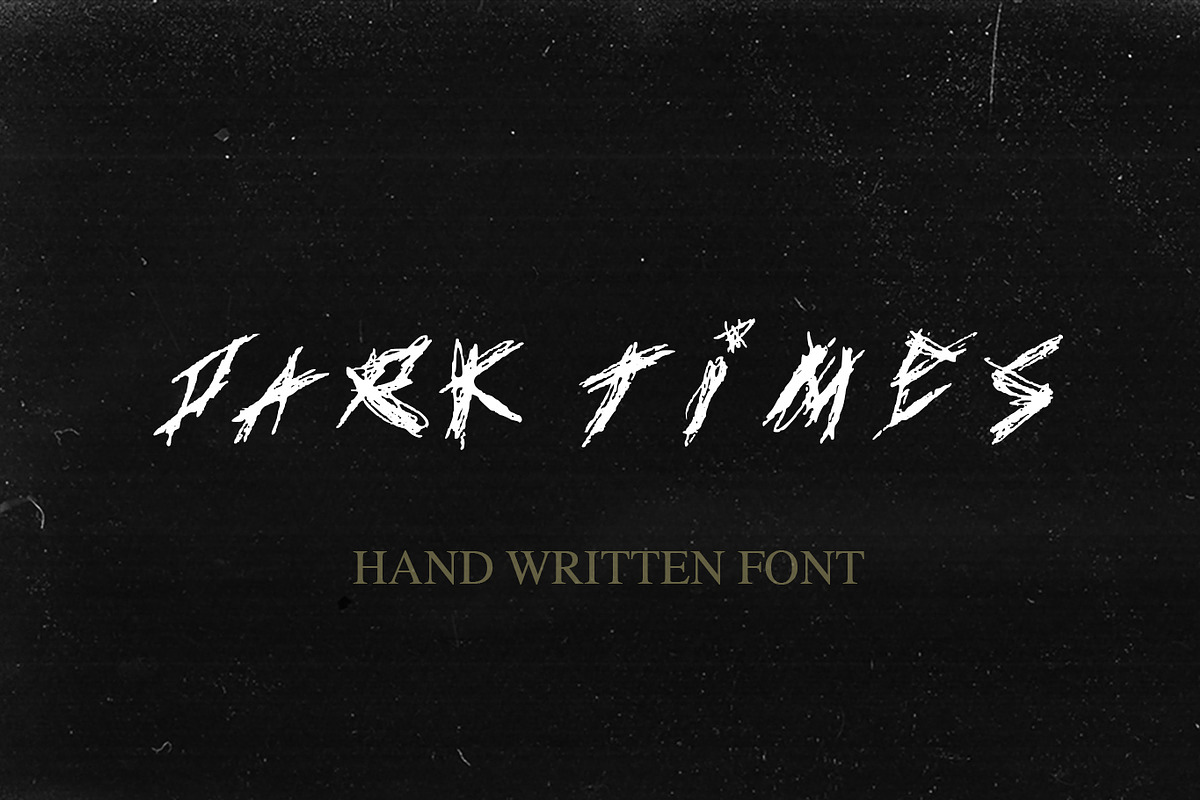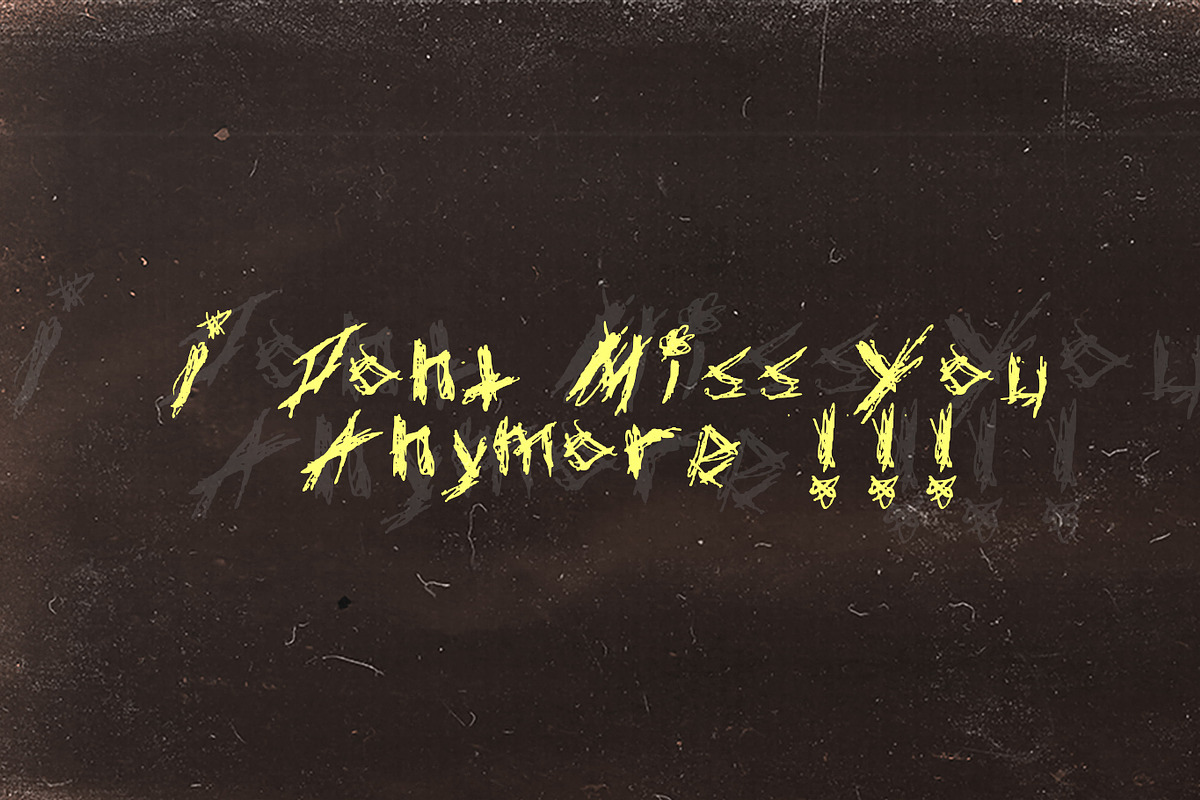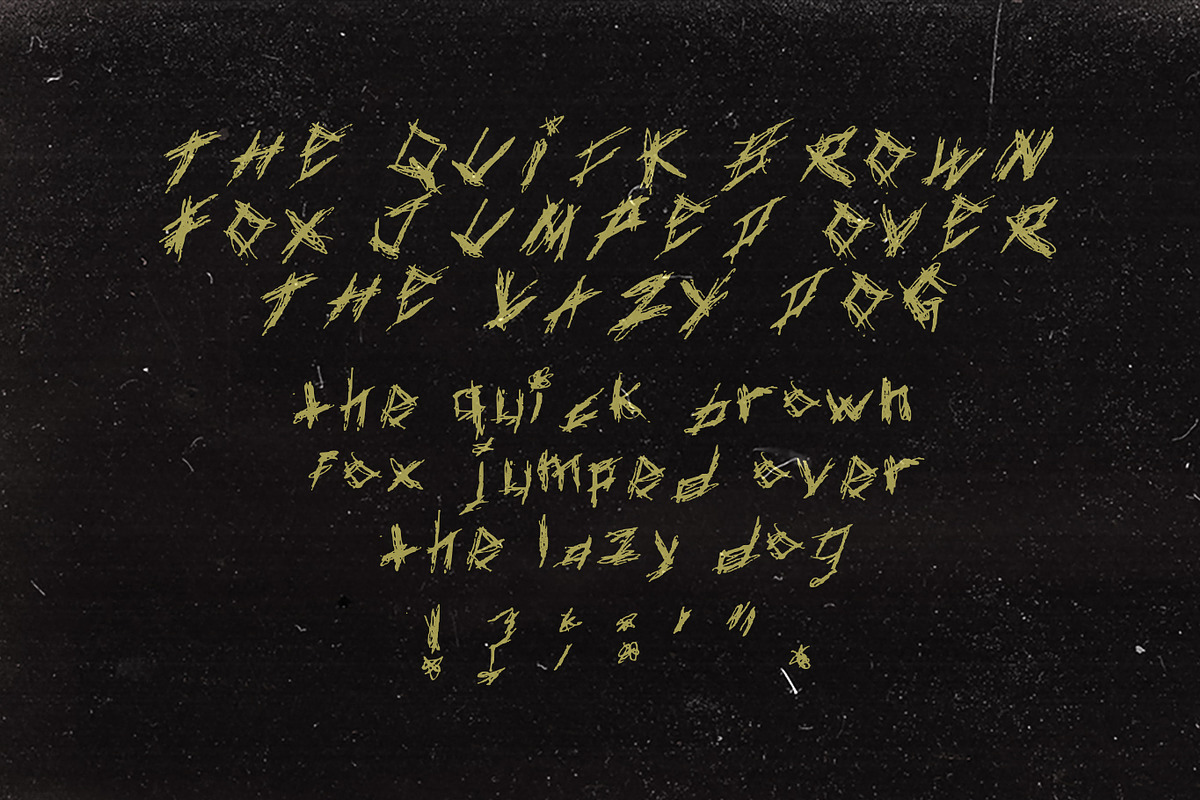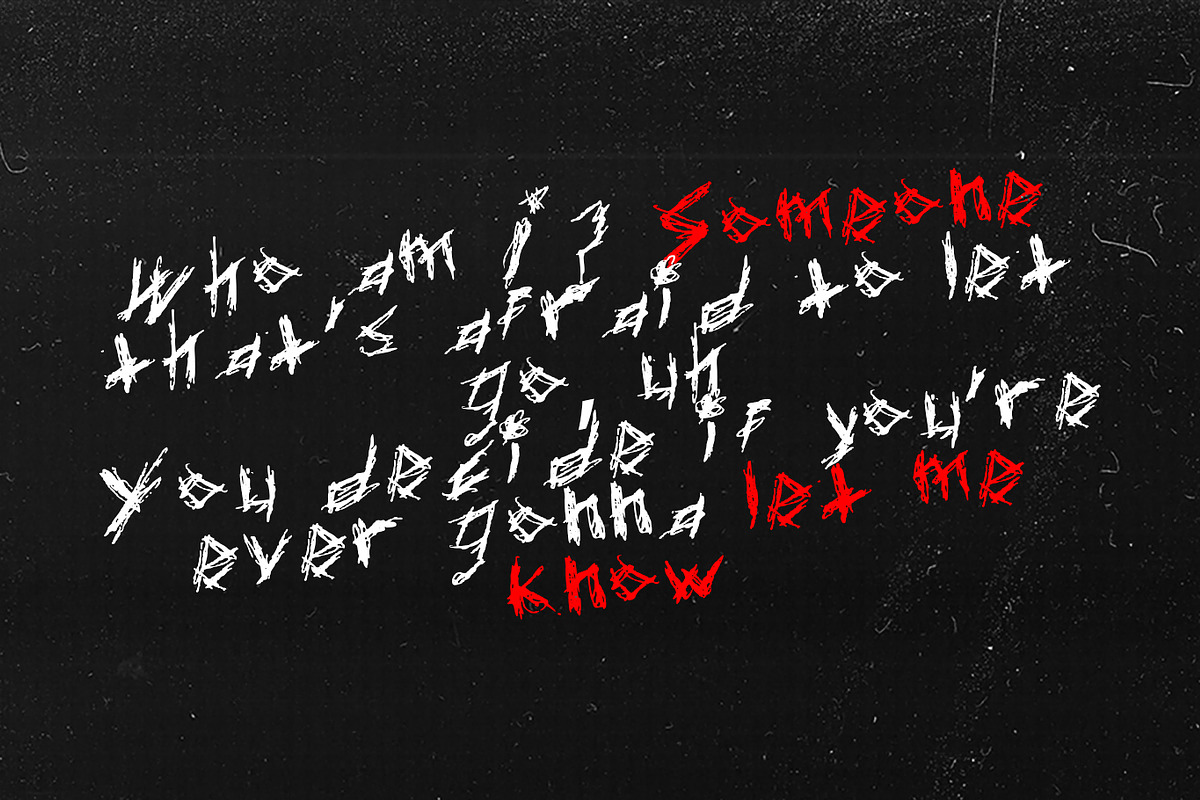
DARK TIMES HANDWRITTEN FONT
DARK TIMES is a dark emo grunge based font for headline, display or experimental. The font works best for horror, sad, metal bands, grunge theme projects.